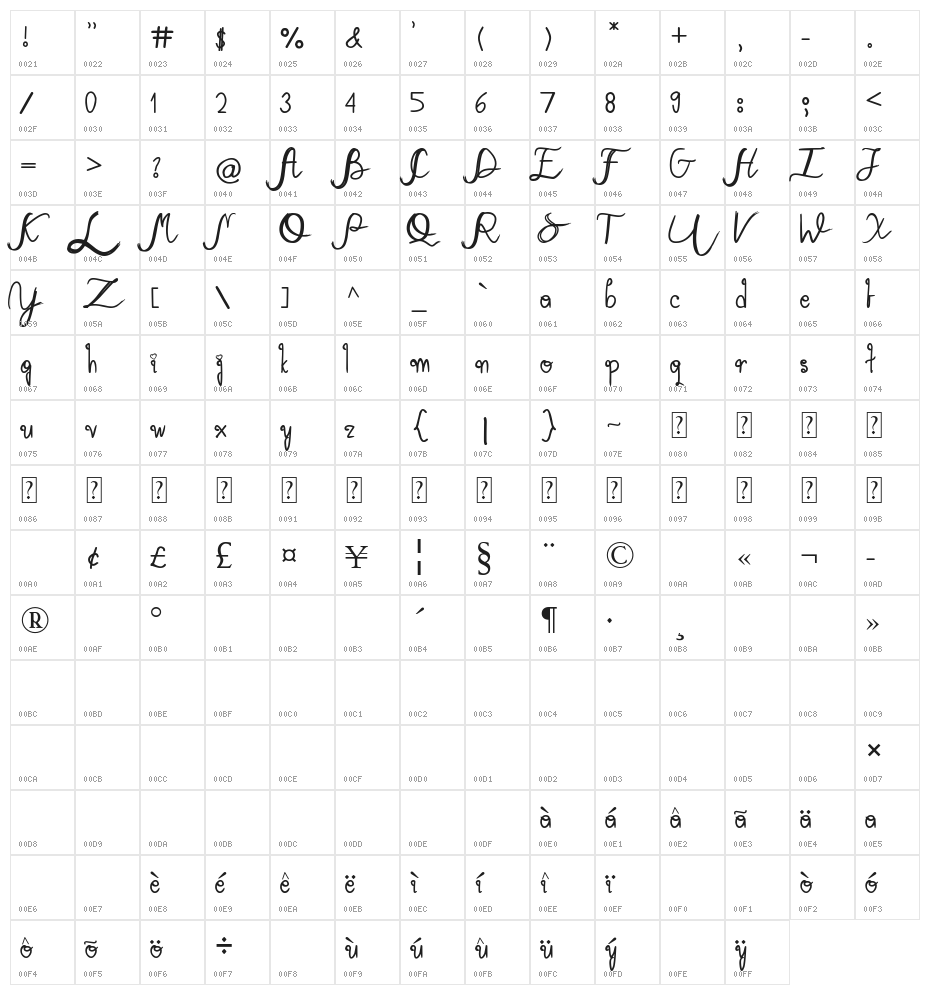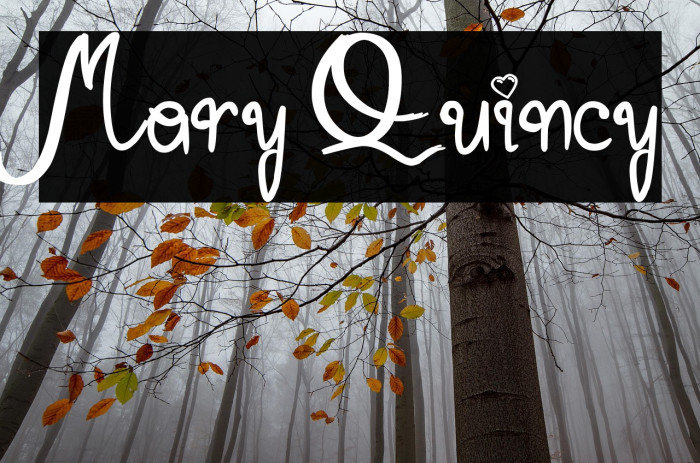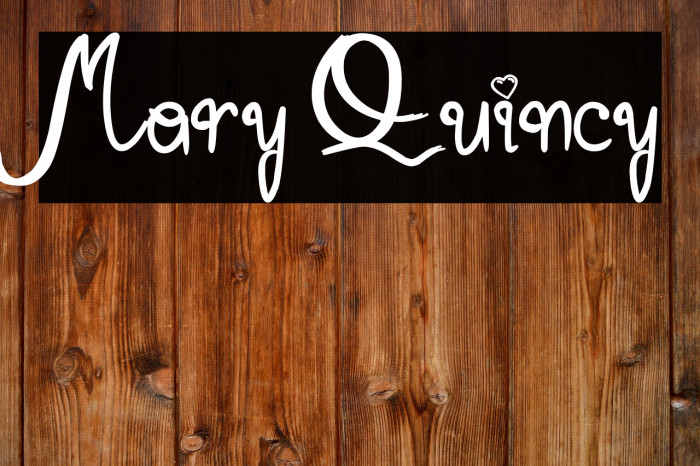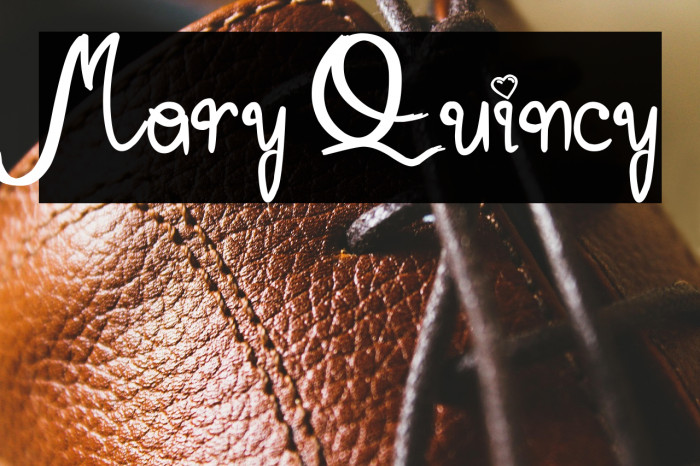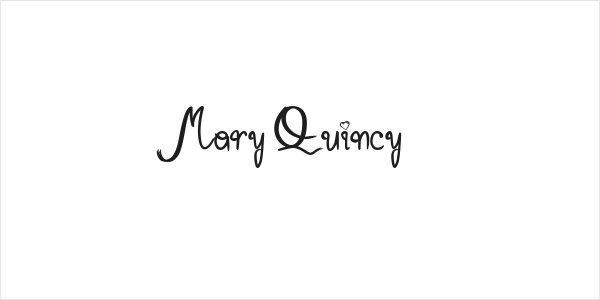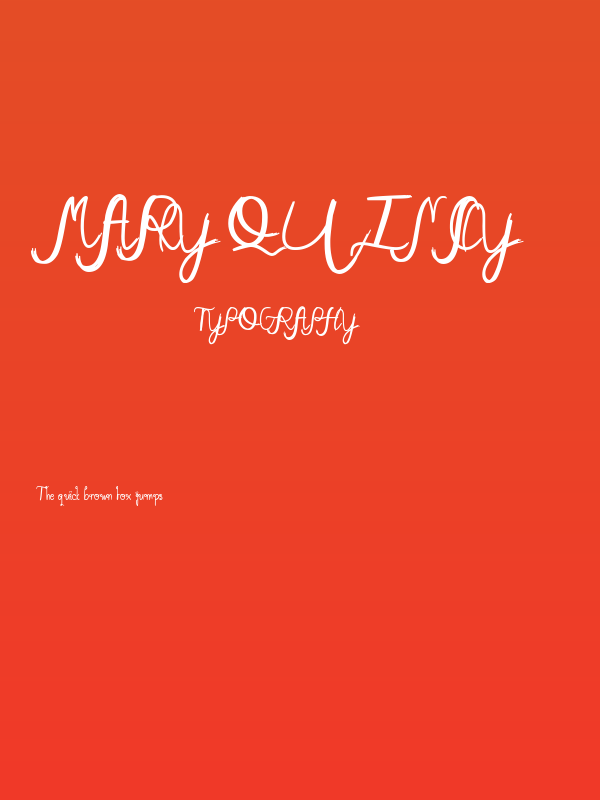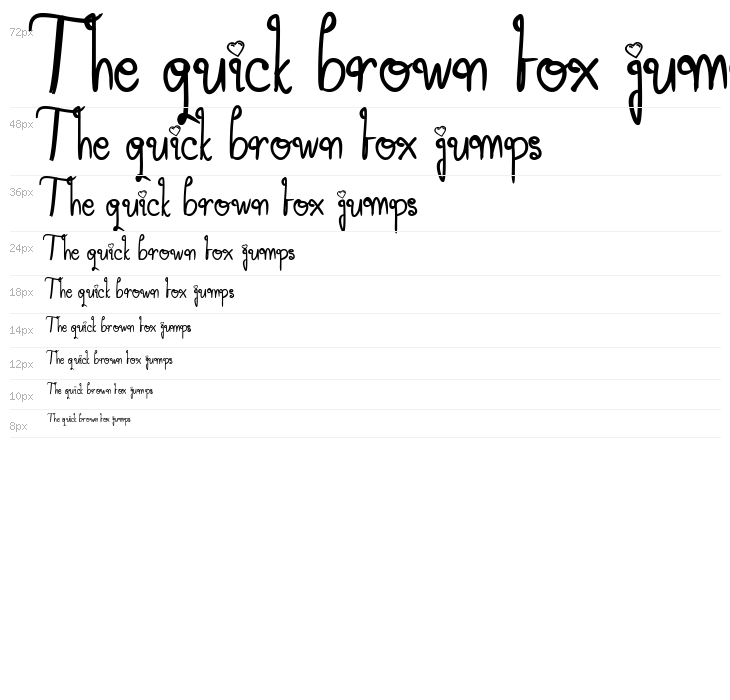
Mary Quincy Font
Mary Quincy Description
This font features a playful and whimsical style with a handwritten appearance. The uppercase letters have a flowing, cursive quality, while the lowercase letters are more compact with unique embellishments, such as hearts on the 'i' and 'j'. The numbers are bold and consistent with the overall playful theme. Special characters maintain the same lively and decorative style, making this font suitable for creative and informal projects.
| Proposed Projects | Ideal for greeting cards, children's books, playful branding, and creative invitations. |